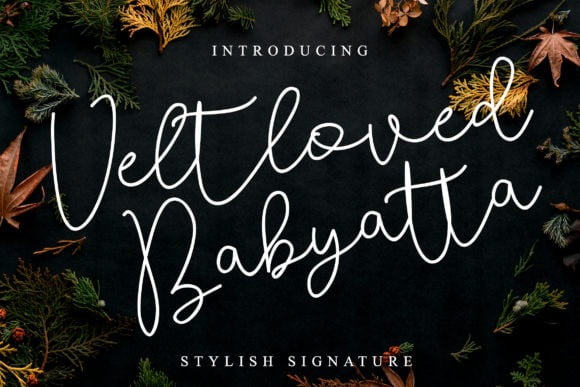
Veltloved Babyatta Font
Veltloved Babyatta Font is a beauty & natural handwritten script. It has classy style & allows you to create stunning and easy hand-lettering in an instant.